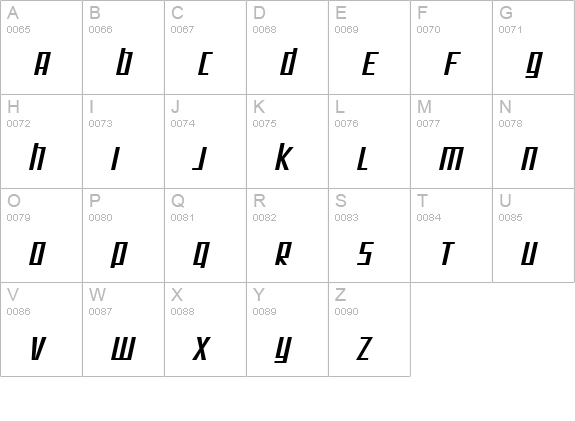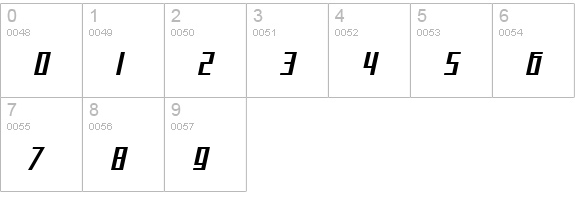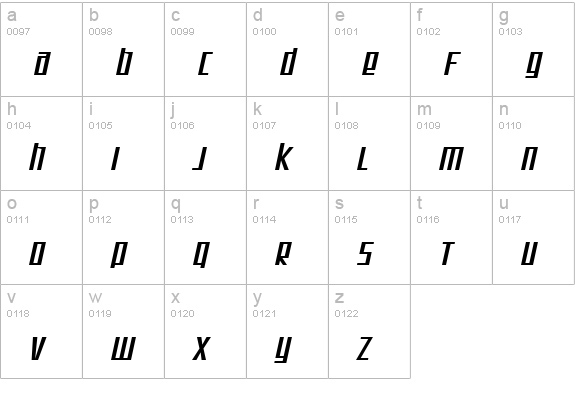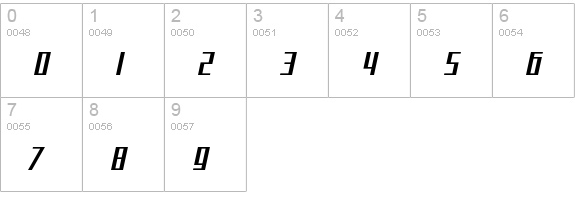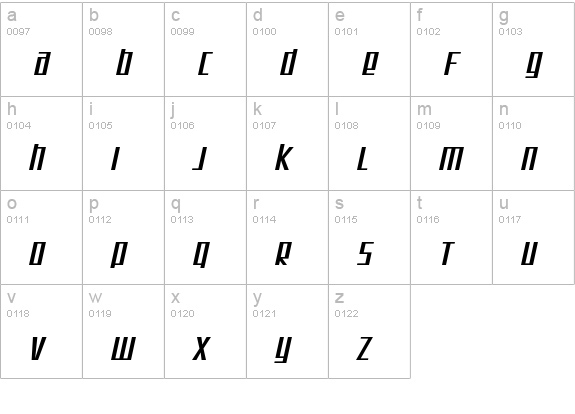
SF Square Root Extended Oblique Font Details
SF Square Root Extended Oblique is a distinctive, extended-width, italic variant in the SF typeface family \xE2\x80\x94 well suited to design and typography projects.
SF Square Root Extended Oblique font is a modern and stylish typeface that is sure to catch the eye. Its unique and oblique design gives it a contemporary edge, making it perfect for a variety of creative projects. This font is not only visually appealing, but it also offers exceptional readability. Each character is carefully crafted to ensure clarity and legibility, even at smaller sizes. The extended width of the letters adds a touch of elegance and sophistication to any design. One of the best features of SF Square Root Extended Oblique font is that it is freely available to download at FontsMarket.com. This means that you can easily access and use this font in your personal or commercial projects without any restrictions. Whether you are working on a logo, website design, or any other creative endeavor, this font will effortlessly enhance your work with its sleek and modern aesthetic. The versatility of SF Square Root Extended Oblique font is another reason why it is so highly regarded. It can be used for a wide range of design purposes, from headlines and titles to body text and captions. Its clean lines and crisp edges make it easy to read on any screen or in any print format. Overall, SF Square Root Extended Oblique font is a must-have for designers and creatives looking to add a touch of modernity and sophistication to their projects. Its unique design, exceptional readability, and availability as a free download make it an invaluable asset. Head over to FontsMarket.com today to get your hands on this stunning font and start creating visually stunning designs.